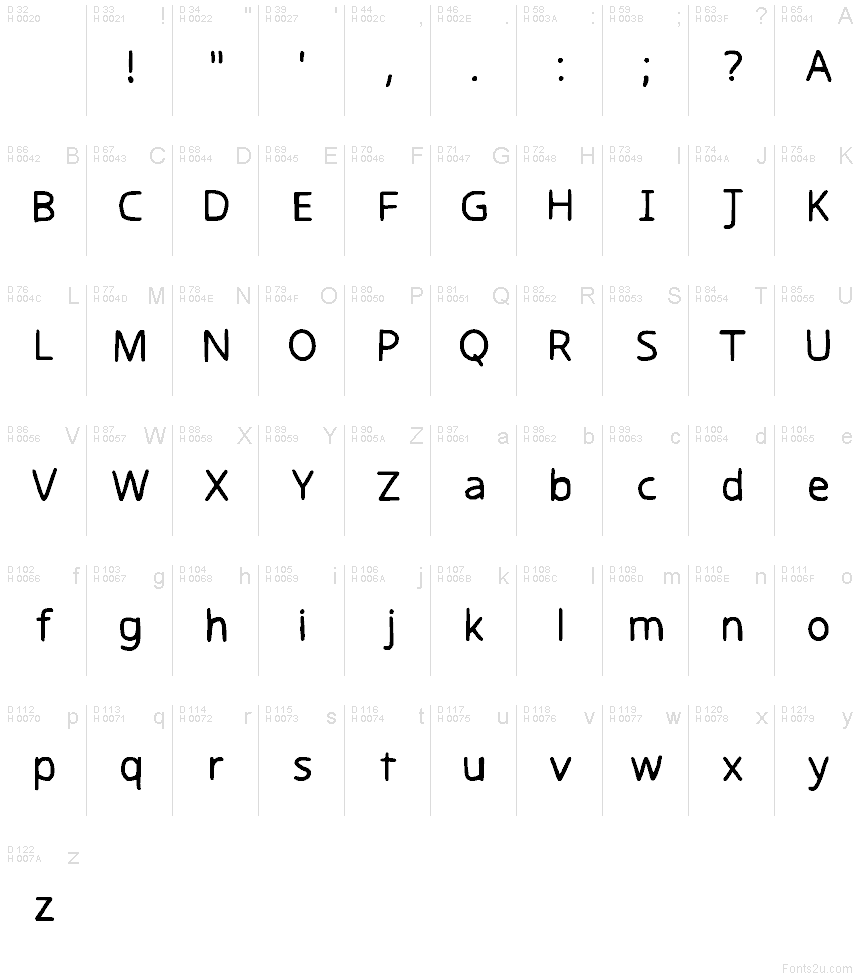
Zaniahs Font Regular
Zaniahs Font font by Zaniah Profit is a free handwritten font that captures the look of neat, friendly marker writing. Rounded shapes, slightly wobbly lines, and generous spacing make it feel warm and approachable—like notes from a favorite teacher on the whiteboard. It reads clearly at smaller sizes while still keeping that casual, human charm up close.
Using Zaniahs Font, you can give classroom posters, kids’ worksheets, picture books, labels, birthday invitations, and social media graphics a relaxed, personal voice. This free font shines when you keep it larger and airy, and it pairs nicely with a clean geometric sans for smaller supporting text or captions.